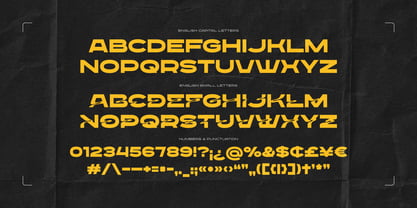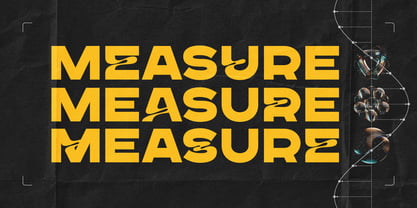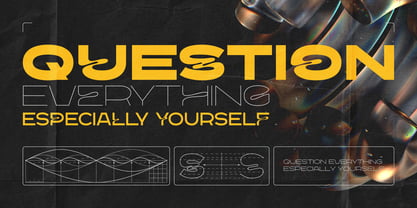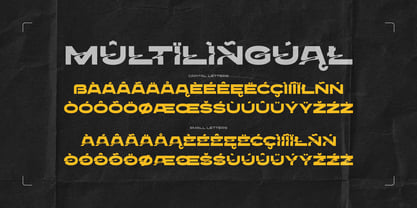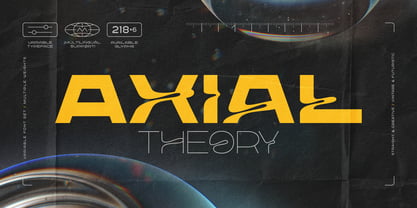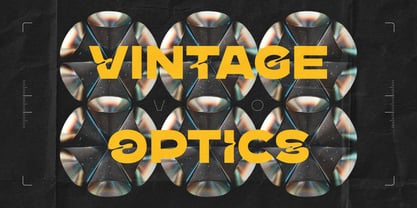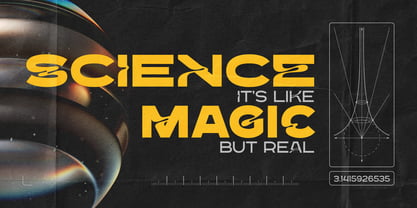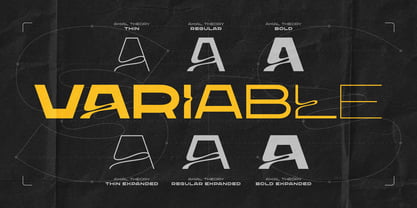
Axial Theory
Introducing Axial Theory, a retrofuturistic font set. This type family includes three weights, three width variations, and an infinitely flexible variable font. Its nicely curved letterforms bring an original vibe to your text.
Each letter has both a simple and a creative version, which you can access by typing uppercase or lowercase letters. It also offers multilingual support — check out the screenshot to see the available characters.
A lot of my fonts inherits vintage graphic styles but nevertheless I don't like to stick to one theme for a long time. That's why I'm trying to create fonts in different styles and from different eras, from old gothic calligraphic to modern handwritten scripts, from medieval antique to minimalist sans-serif typefaces. It's always interesting to design something new, and expand my skills in novel font design directions.